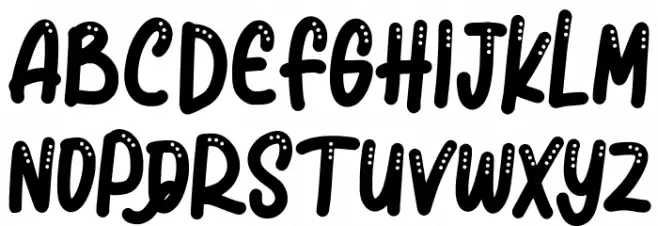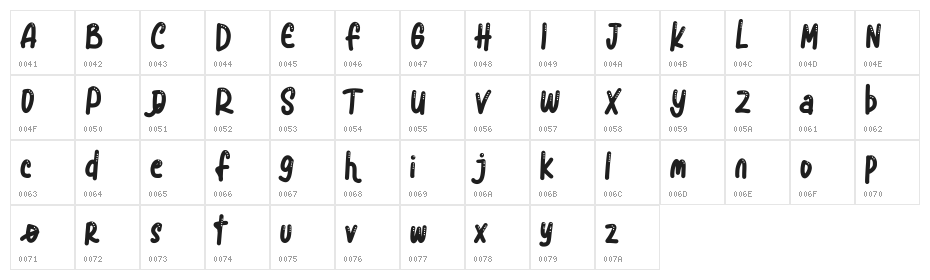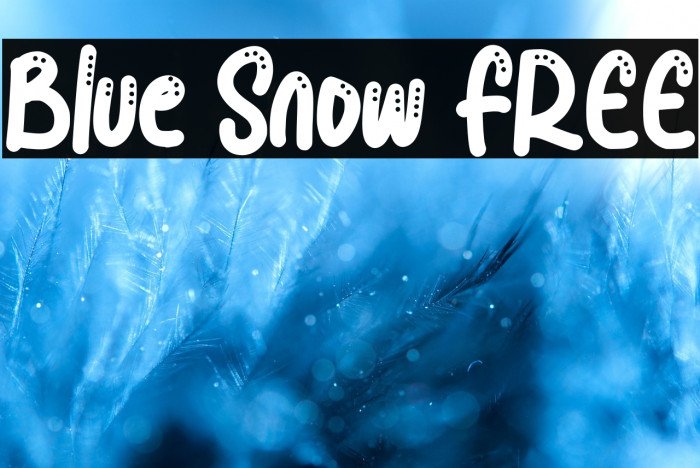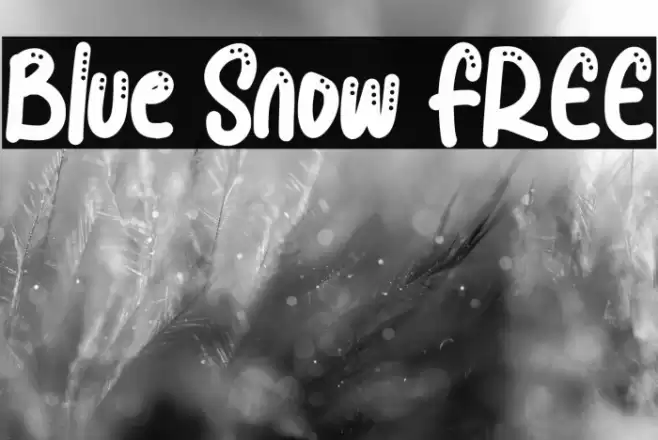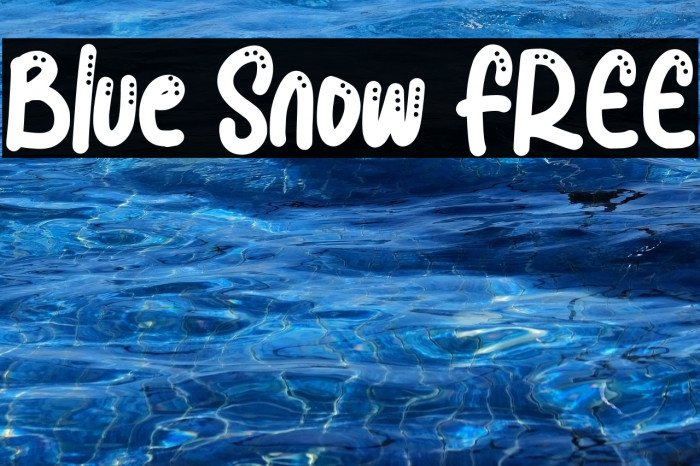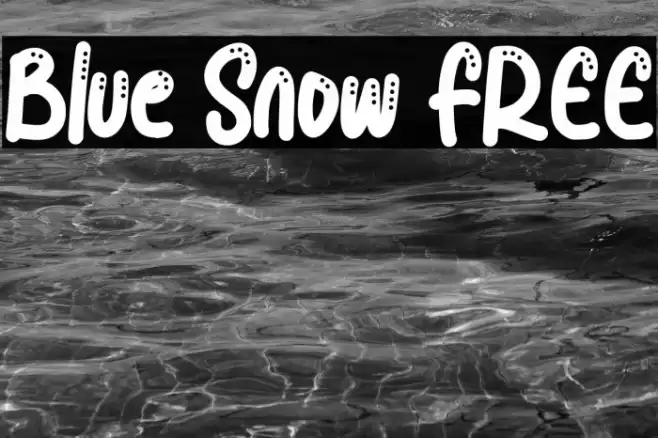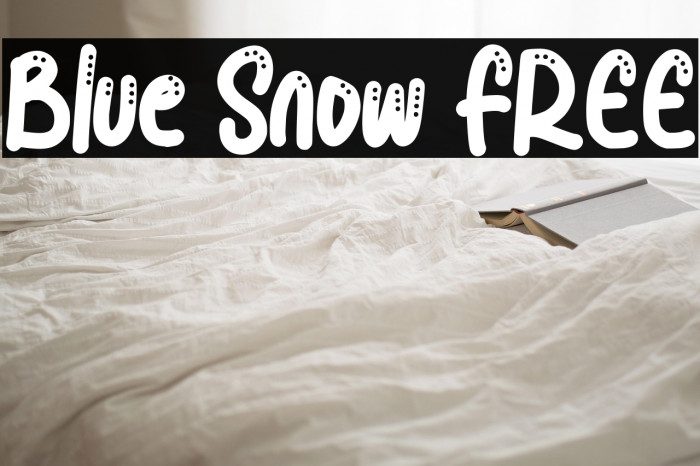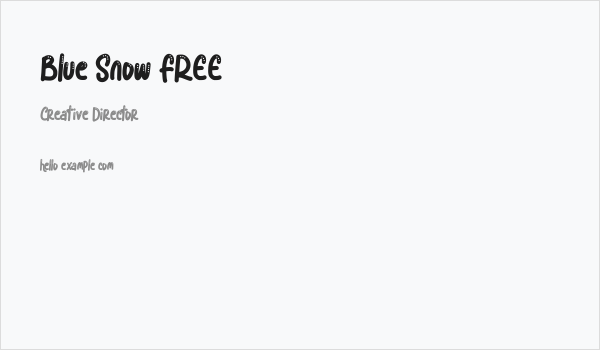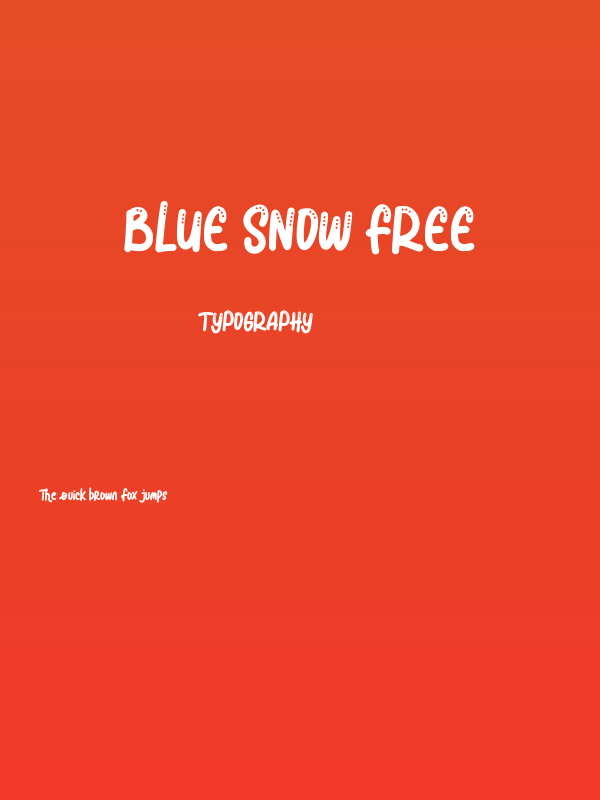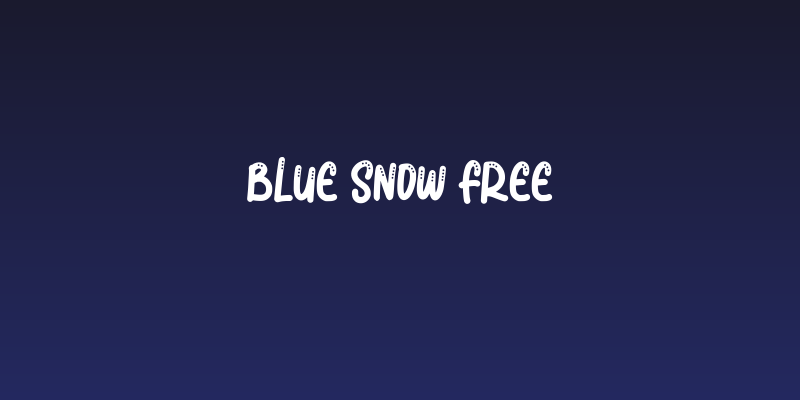
Blue Snow FREE Font
Blue Snow FREE Description
This playful and whimsical font features bold, rounded characters with a unique dotted pattern on each letter, adding a touch of fun and creativity. The letters are slightly irregular, giving it a hand-drawn appearance that enhances its charm. The font is highly legible, with a consistent stroke width that maintains readability while still offering a distinctive style. Its decorative elements make it ideal for projects that require a lively and engaging typeface. The font's design is perfect for capturing attention and conveying a sense of joy and playfulness.